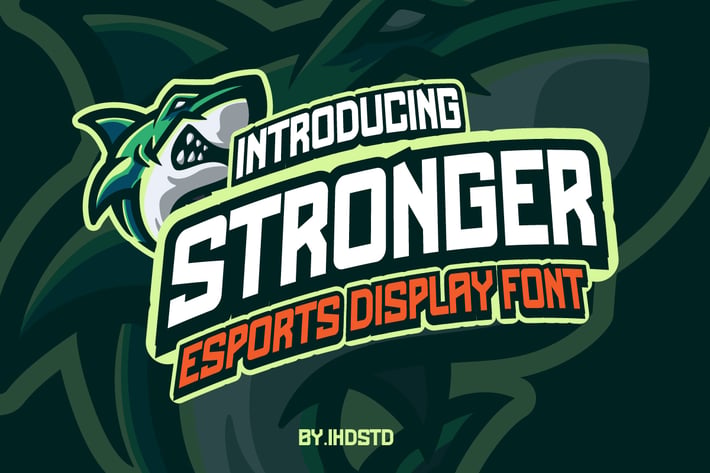
Stronger Font esports
Stronger font is our new item that suitable for your team logo or community logo.
Great for Logo, Sticker, Jersey, Invitation Card, Brochure, etc.